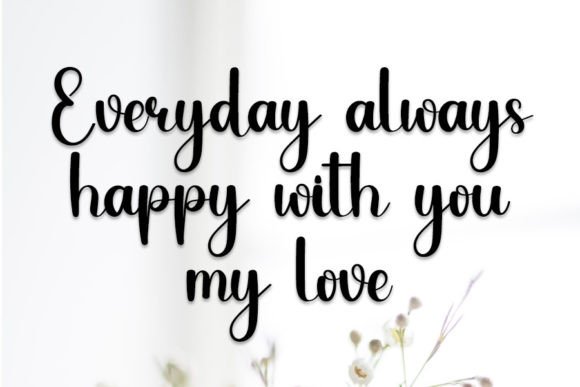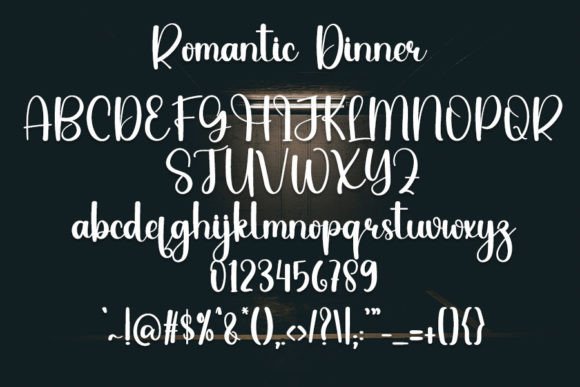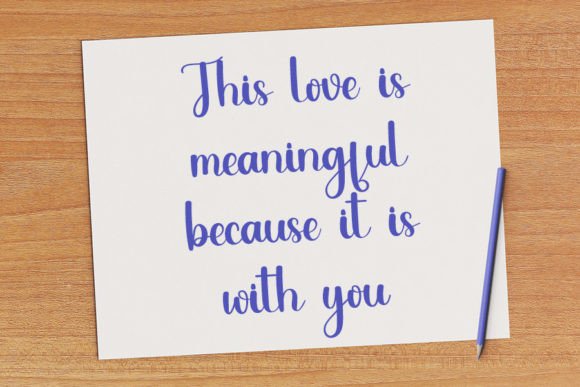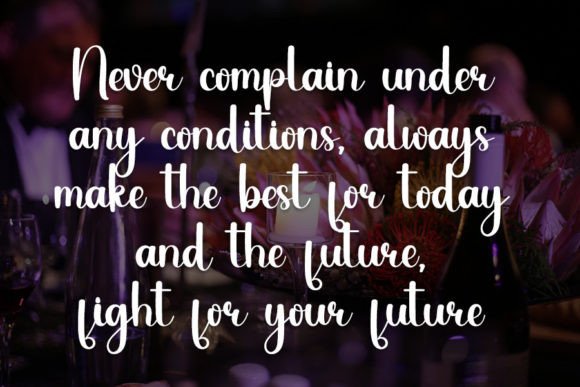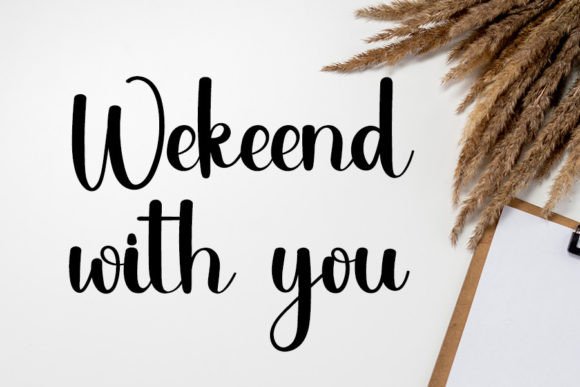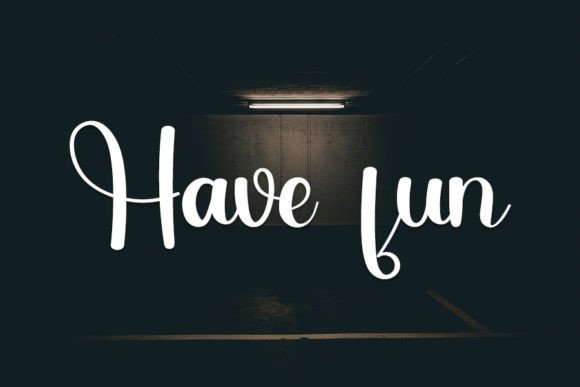
Introduction to Romantic Dinner Font Font
Fonts play a crucial role in design, and the Romantic Dinner Font font is a typeface that brings both character and versatility to any project. Whether you’re working on a branding project, a website, or a print design, the Romantic Dinner Font font offers a unique style that can elevate your work.
Romantic Dinner is a trendy handwritten font with a contemporary atmosphere and impeccable form, inspired by a timeless classic calligraphy.
It will add elegance and class to any of your design projects .
Key Features of Romantic Dinner Font Font
Why Choose Romantic Dinner Font Font?
The Romantic Dinner Font font is more than just a typeface – it’s a design tool that helps you communicate your message with style and clarity. Its unique character set and versatile design make it suitable for a wide range of applications, from elegant invitations to bold headlines.
With its carefully crafted letterforms and balanced proportions, the Romantic Dinner Font font ensures readability and visual appeal across all mediums.
What makes Romantic Dinner Font font special?
The Romantic Dinner Font font stands out with its unique design, exceptional readability, and versatility across various design applications.